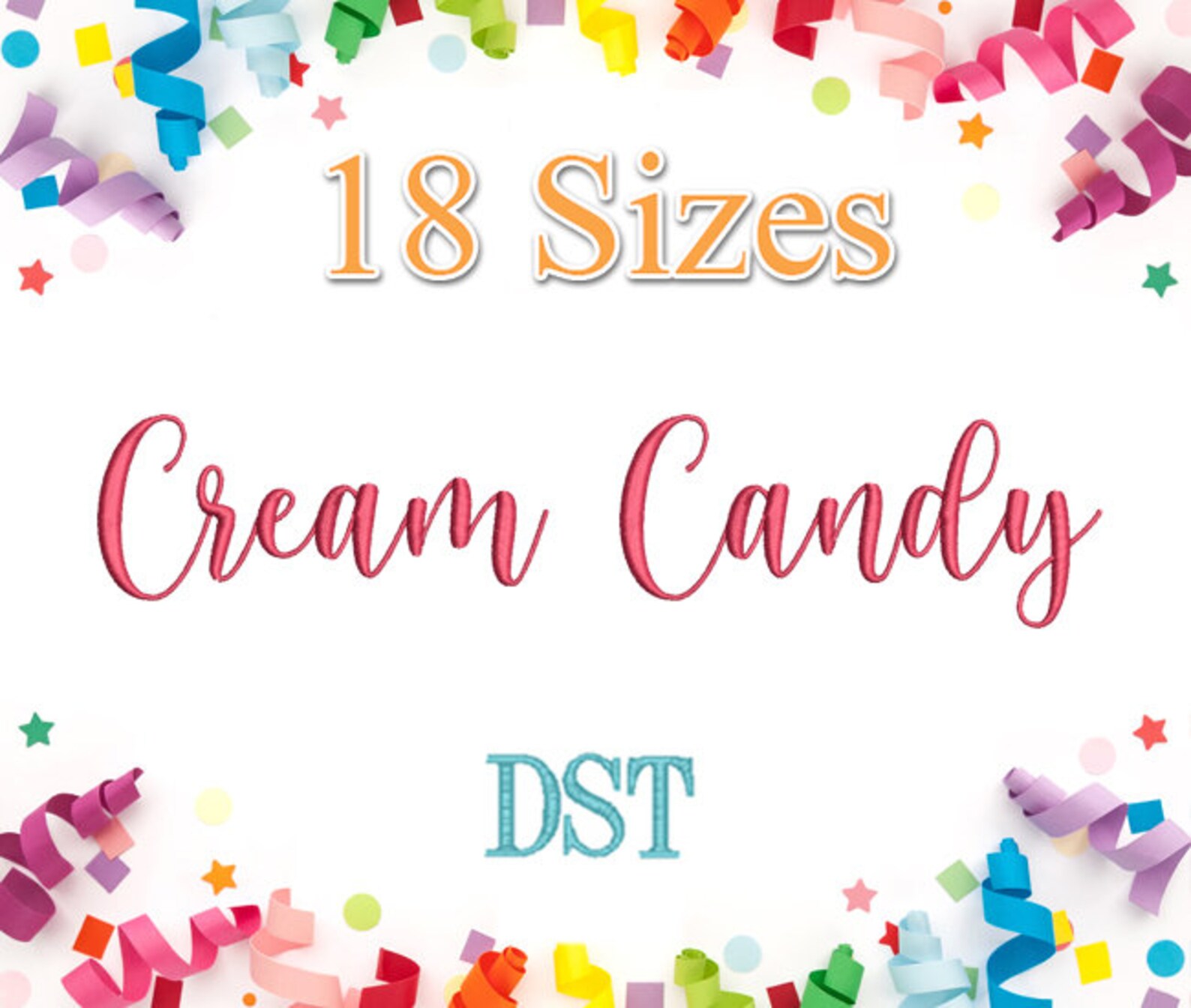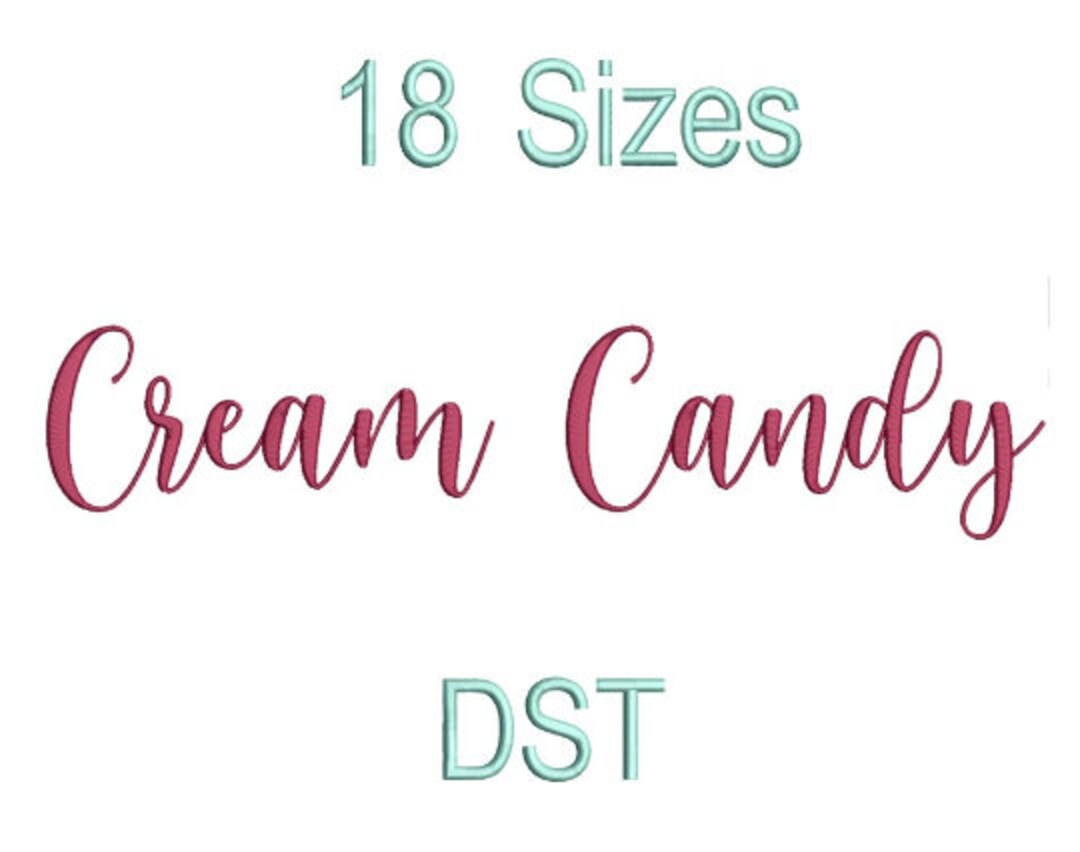
Cream Candy Font Generator . get your very own free download of the cream candy font, designed and created by ef studio. Moreover, you can embed it to your. Available in both ttf and otf. free download of cream candy font. It is a modern script font inspired by candy and desserts,. cream candy is a free font for personal use with 22 ligatures and swashes. It is free for personal use only and. Please contact me before any. Released in 2019 by ef studio and licensed for. cream candy is a free font for personal use by ef studio. cream candy is a modern script font with high contrast and calligraphy style. 22 ligatures, beginning & ending swashes.
It is a modern script font inspired by candy and desserts,. cream candy is a free font for personal use with 22 ligatures and swashes. 22 ligatures, beginning & ending swashes. It is free for personal use only and. Please contact me before any. Released in 2019 by ef studio and licensed for. cream candy is a modern script font with high contrast and calligraphy style. free download of cream candy font. Available in both ttf and otf. cream candy is a free font for personal use by ef studio.
Cream Candy Font Generator Released in 2019 by ef studio and licensed for. Moreover, you can embed it to your. cream candy is a free font for personal use with 22 ligatures and swashes. It is a modern script font inspired by candy and desserts,. Available in both ttf and otf. cream candy is a free font for personal use by ef studio. Please contact me before any. Released in 2019 by ef studio and licensed for. cream candy is a modern script font with high contrast and calligraphy style. get your very own free download of the cream candy font, designed and created by ef studio. 22 ligatures, beginning & ending swashes. It is free for personal use only and. free download of cream candy font.
18 Sizes Cream Candy Fontdstcalligraphy Fontsscript Etsy Cream Candy Font Generator Available in both ttf and otf. cream candy is a free font for personal use with 22 ligatures and swashes. It is free for personal use only and. It is a modern script font inspired by candy and desserts,. Please contact me before any. Moreover, you can embed it to your. Released in 2019 by ef studio and licensed. Cream Candy Font Generator.
Cream Candy Font Generator cream candy is a free font for personal use with 22 ligatures and swashes. free download of cream candy font. Moreover, you can embed it to your. Please contact me before any. get your very own free download of the cream candy font, designed and created by ef studio. cream candy is a free font for. Cream Candy Font Generator.
Chocolate Cream Candy Font Stock Illustration 353175113 Shutterstock Cream Candy Font Generator Moreover, you can embed it to your. get your very own free download of the cream candy font, designed and created by ef studio. 22 ligatures, beginning & ending swashes. Please contact me before any. cream candy is a free font for personal use with 22 ligatures and swashes. free download of cream candy font. It is. Cream Candy Font Generator.
Cream and candy font stock illustration. Illustration of colored 81671210 Cream Candy Font Generator It is free for personal use only and. free download of cream candy font. get your very own free download of the cream candy font, designed and created by ef studio. 22 ligatures, beginning & ending swashes. Available in both ttf and otf. Moreover, you can embed it to your. cream candy is a free font for. Cream Candy Font Generator.